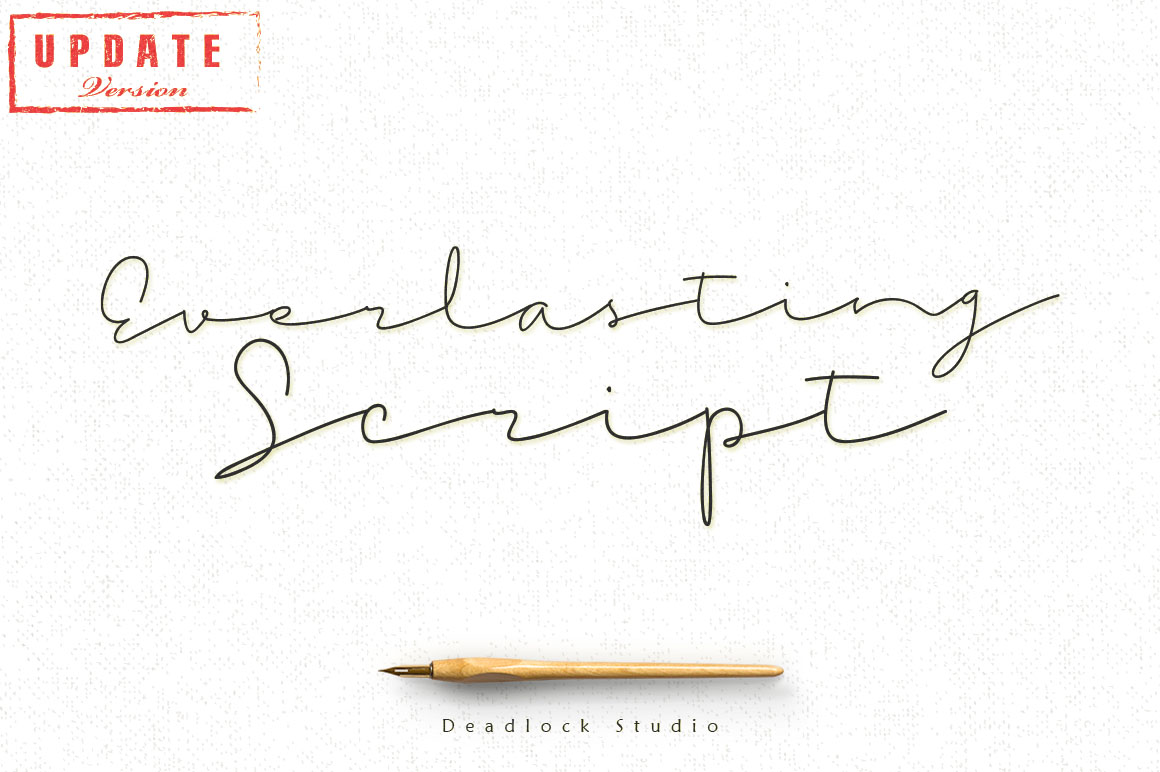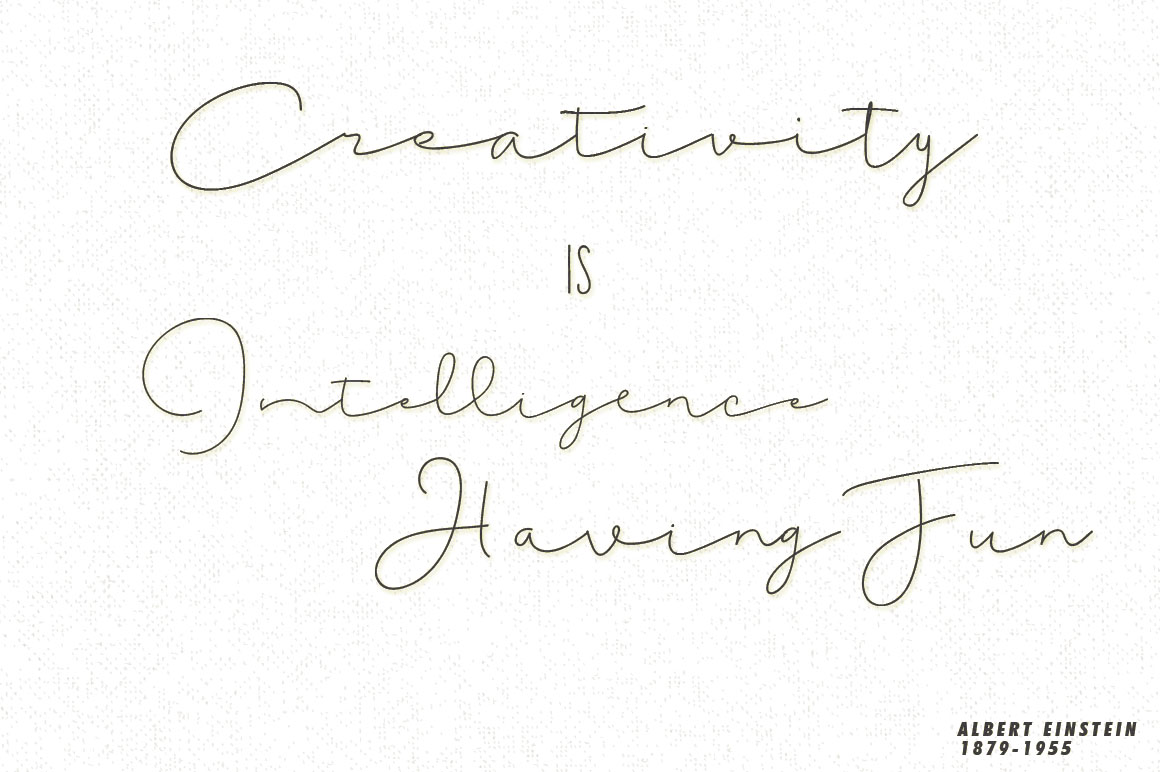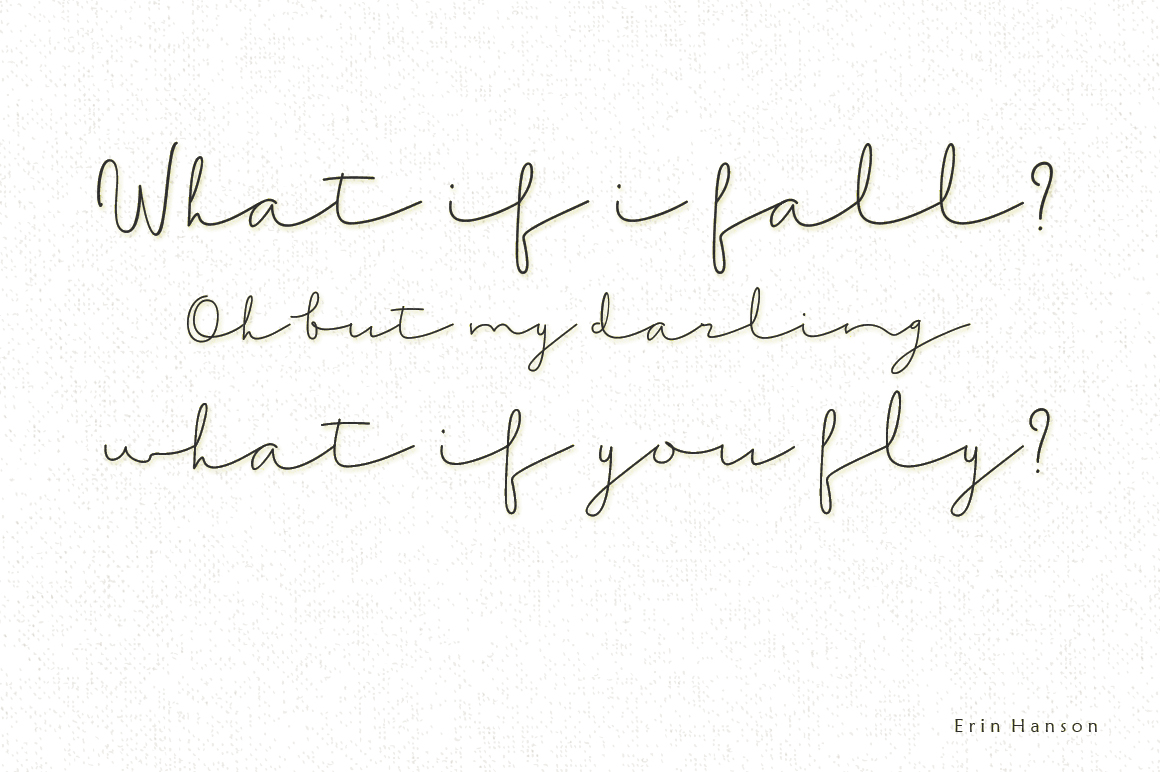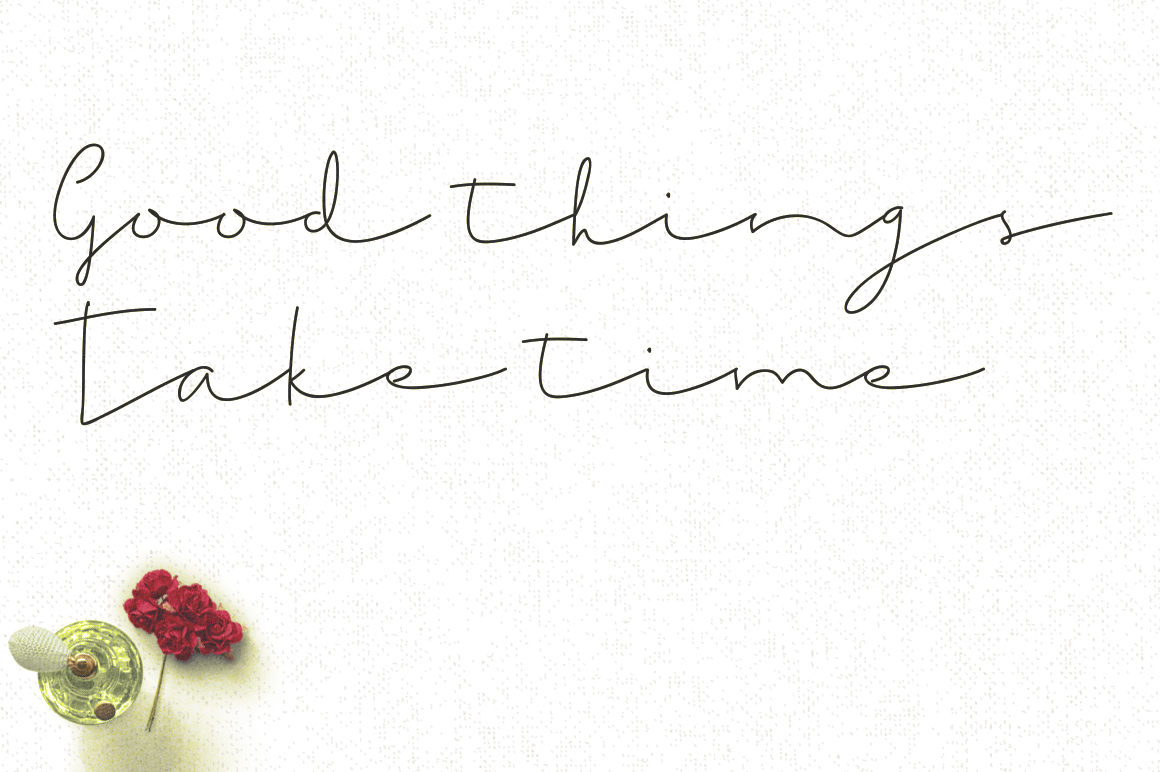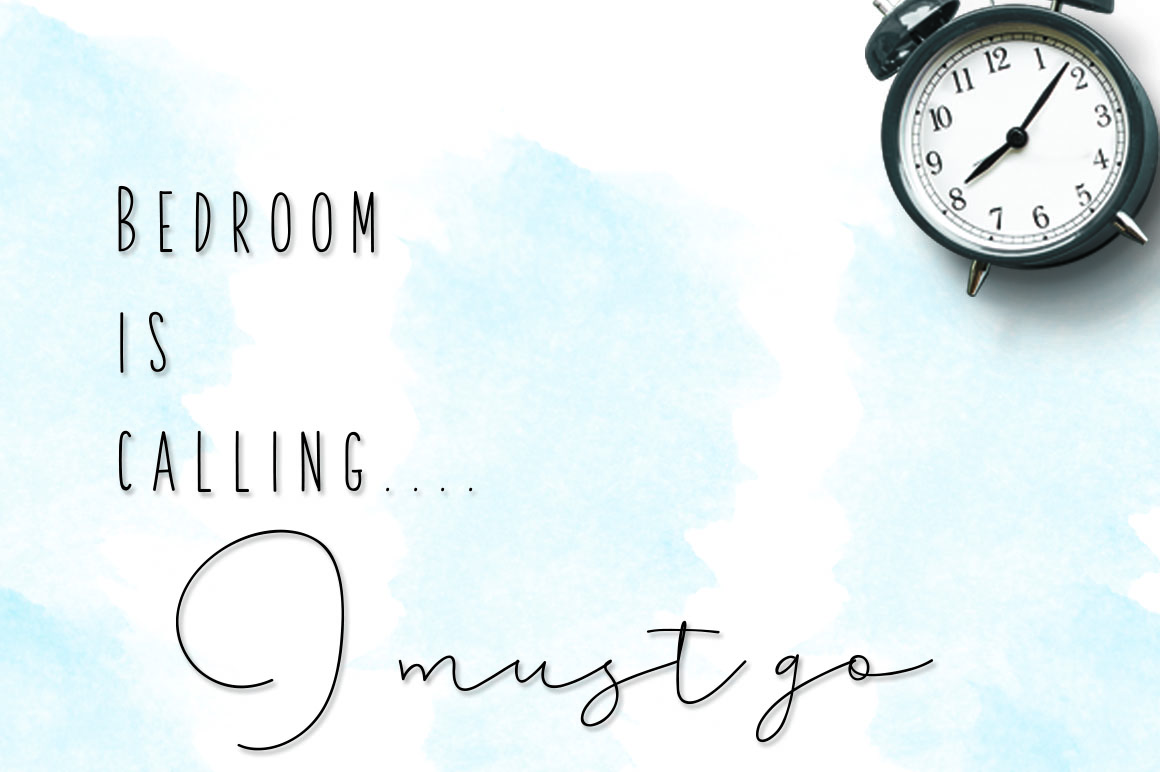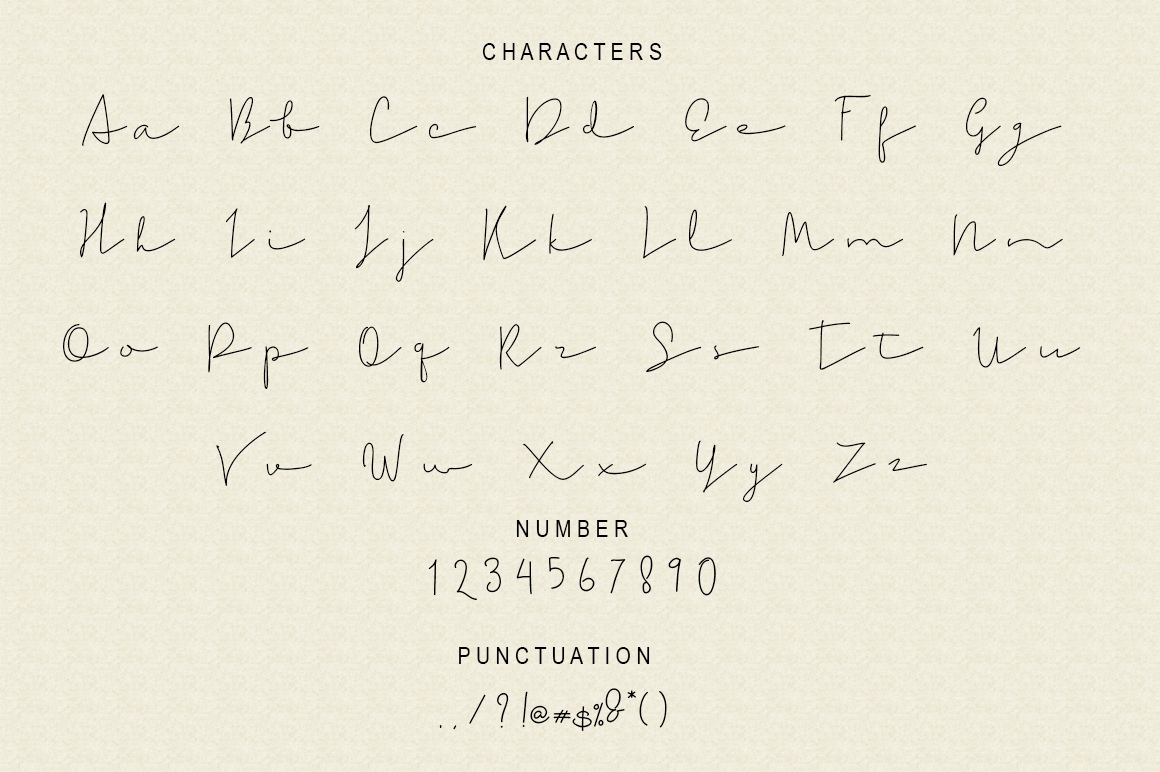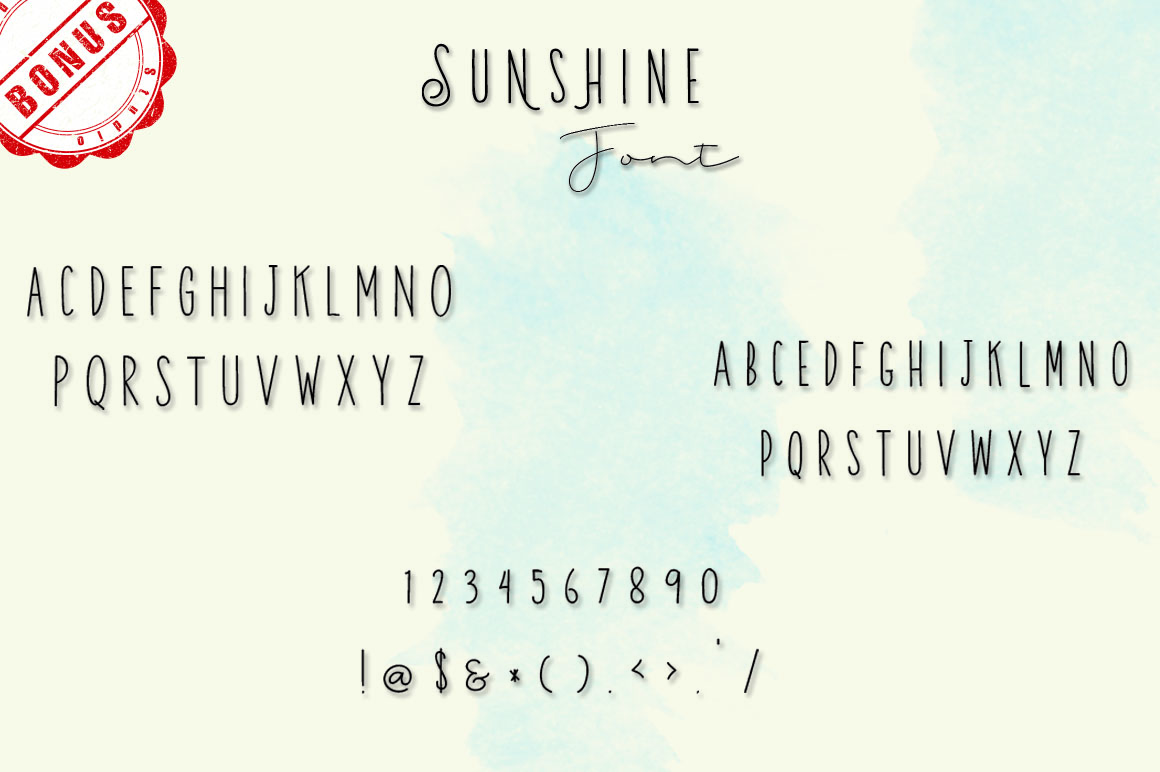
Everlasting Script + Sunshine (2 fonts)
From Deadlock Studio
Everlasting Script was made to complete your design works and gives a handwriting feel.
Update : New Alternate Characters + includes a BONUS Sunshine Font!
About Deadlock Studio
Deadlock (type design) Studio is based in Bandung, Indonesia and is owned by Rhega Juliandy. Deadlock has been designing and releasing unique and contemporary fonts since 2015.